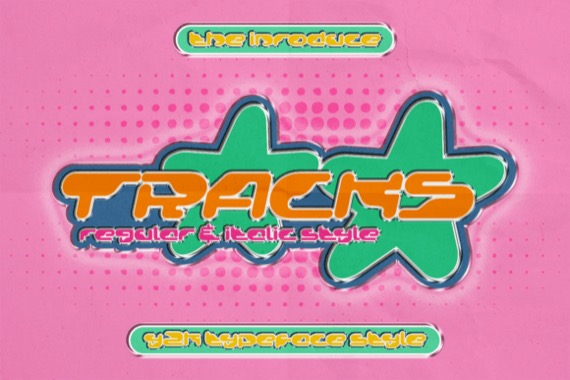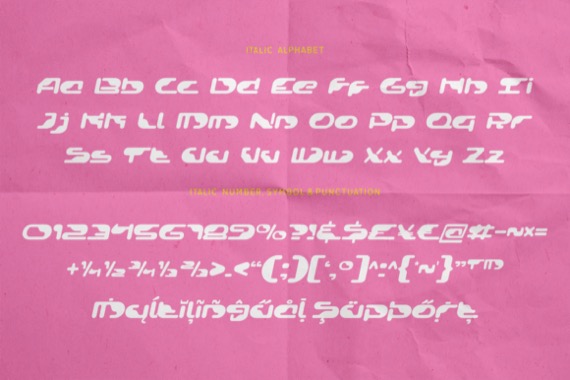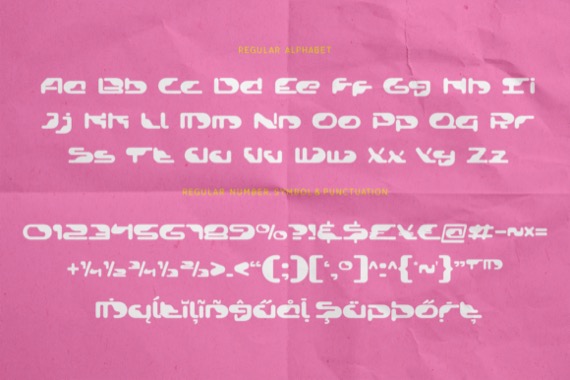
Proudly introducing a new modern fancy typeface from Shineink.Designlab, Tracks is a wavy, whimsical and uniquely shaped display font. Trendy and stylish, this font will elevate each of your creations. Tracks is PUA encoded which means you can access all of the glyphs and swashes with ease!
Tracks Display Font
Designer, Publisher: Shineink.Designlab